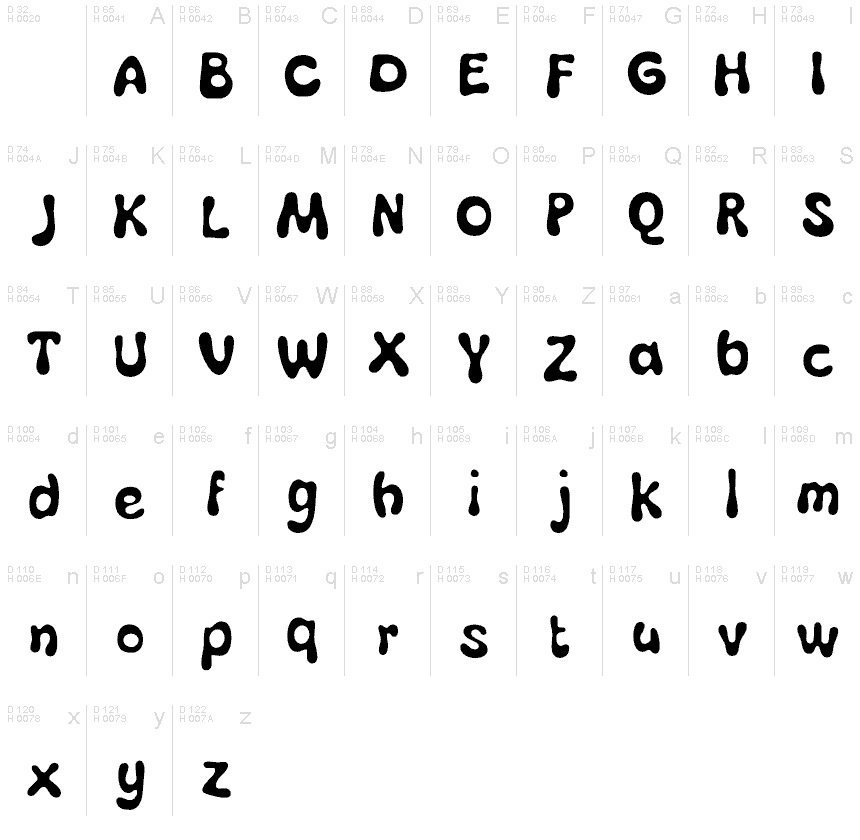
Boyers Blur font by Craft Supply Co is a display font featuring a casual cartoon style. It is rounded, organic, and whimsical, with a modern retro influence that can be used for all your creative projects. There’s no way you can skip this convenient resource that will give extra freshness to your text designs.